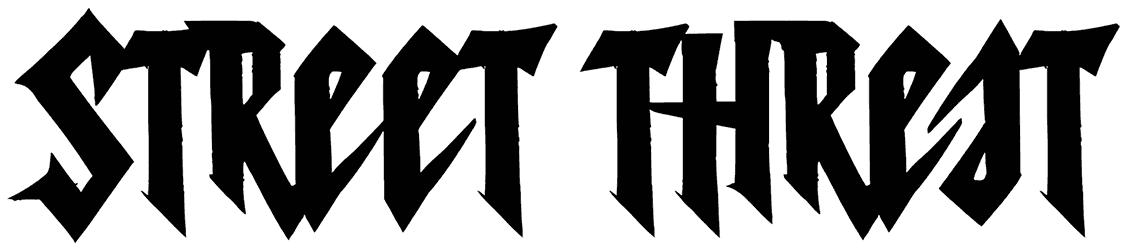
Street Threat Font
If you want to create an impact on your readers, use the graffiti font Street Threat. This bold and energetic font is perfect for any project, from posters to graffiti artwork, and has the capacity to instill a sense of…
If you want to create an impact on your readers, use the graffiti font Street Threat. This bold and energetic font is perfect for any project, from posters to graffiti artwork, and has the capacity to instill a sense of rebellion and modernism in its users.
It offers a mixture of lowercase and uppercase letters, both of which are incomplete, but this is perfect for those trying something new. It’s available for free in the RB’s huge font archive.